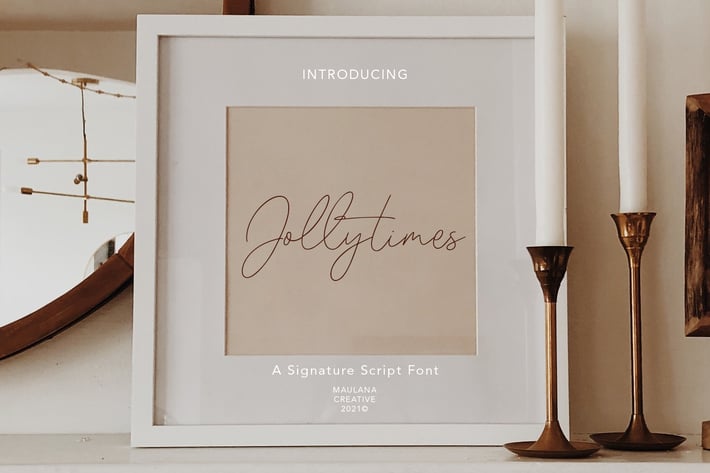
Jollytimes Signature Font
Jollytimes is casual signature font, with clean mono-line stroke, slanted and fun character. It has Opentype features ligatures of character and lowercase alternate, To give you an extra creative work. Jollytimes font support multilingual more than 100+ language. This font is good for logo design, Social media, Movie Titles, Books Titles, a short text even a long text letter and good for your secondary text font with sans or serif. Make a stunning work with Jollytimes font.